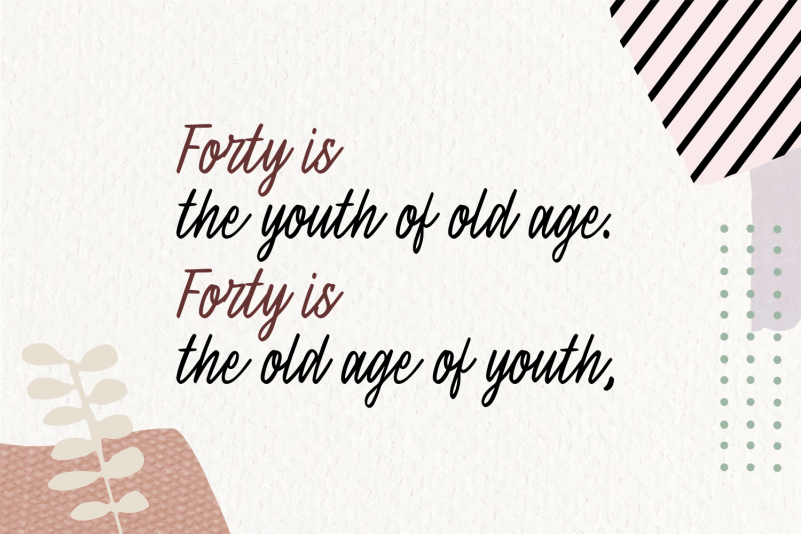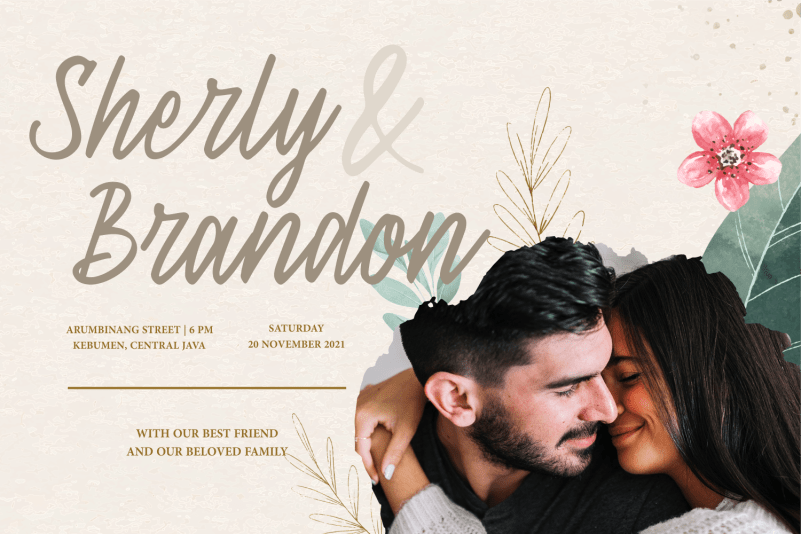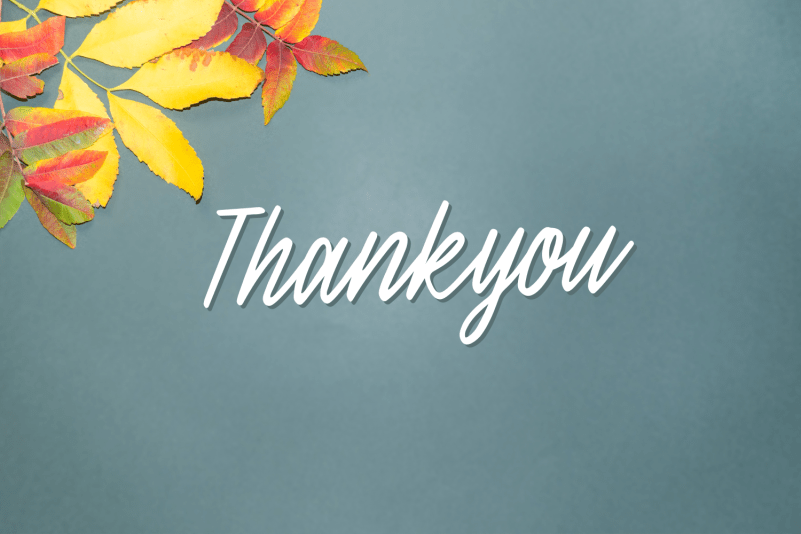
Yellow Skies Font
Yellow Skies Script Font is a modern handwritten font that beautifully flows to create an authentic feel. Use this cursive typeface for branding projects, invitations, social media posts, or to express words above the background.